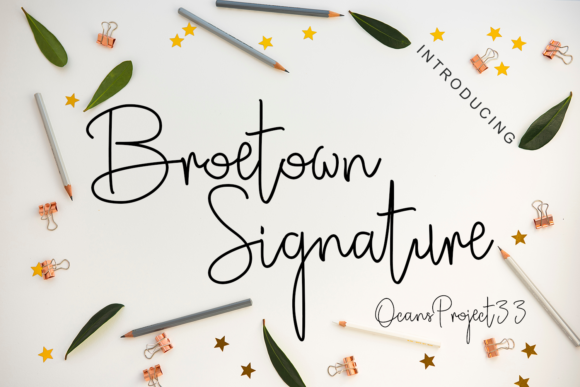
The Broetown Signature Font: Elevate Your Designs with Elegance
Ah, the quest for the perfect font. We’ve all been there – stuck in the midst of a design project, scrolling through font libraries, and yet, nothing seems quite right. I recall a particularly frustrating moment when a client requested a font that was “classy, modern, and elegant” for their branding project. After hours of searching, I stumbled upon the Broetown Signature font, and it was love at first sight. In this article, we’ll dive into what makes this stylish handwritten script so special and how you can make the most of it in your designs.
A Personal Review: What I Love About Broetown Signature
Here’s what makes Broetown Signature a standout in my book:
• ✨ Elegant and Modern: It strikes the perfect balance between being modern and elegant, making it suitable for a wide range of design projects.
• ✅ Versatile: Whether you’re working on a logo, a wedding invitation, or a brand’s social media graphics, Broetown Signature adapts beautifully.
• 💫 Unique Character: Each letter has a unique charm, adding a personal touch to your designs.
While Broetown Signature is a fantastic font, there are a few things to keep in mind:
• ⚠️ Legibility at Small Sizes: Like many script fonts, it may lose legibility when used at very small sizes. It’s best used at 14px or larger.
• 🤔 Overuse: Because it’s so elegant, it’s easy to overuse. Balance is key to making your design pop.
Exploring Alternatives: Similar Fonts to Broetown Signature
If you’re looking for more options, here are some similar fonts and when to use them:
• Lobster: A more whimsical and bouncy script, great for adding a playful touch to designs.
• Pacifico: Offers a more relaxed, beachy vibe, perfect for lifestyle and travel brands.
• Great Vibes: A fun, adventurous script that’s great for titles and headings.
• Alex Brush: Provides a more artistic and hand-painted feel, suitable for creative and bespoke projects.
The Story Behind Broetown Signature
While the exact origins of Broetown Signature might be shrouded in mystery, it’s clear that it was crafted with love and attention to detail. The designer, likely inspired by the beauty of handwritten scripts and the evolving trends in modern design, set out to create a font that would add a touch of class and elegance to any project. Whether through hours of meticulous handwriting and digitization or through a passion for typography, the end result is a font that resonates with designers and clients alike.
Q: Is Broetown Signature suitable for body text?
A: While it’s beautiful, Broetown Signature is best used for headings and titles due to its script nature and potential legibility issues at smaller sizes.
Q: Does Broetown Signature support OpenType features?
A: Yes, it does. You can access various stylistic alternates and glyphs through OpenType features in compatible software.